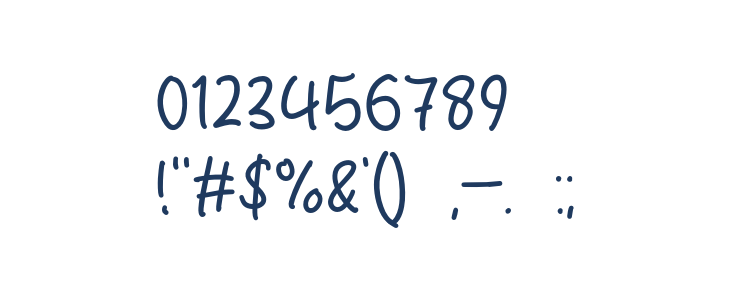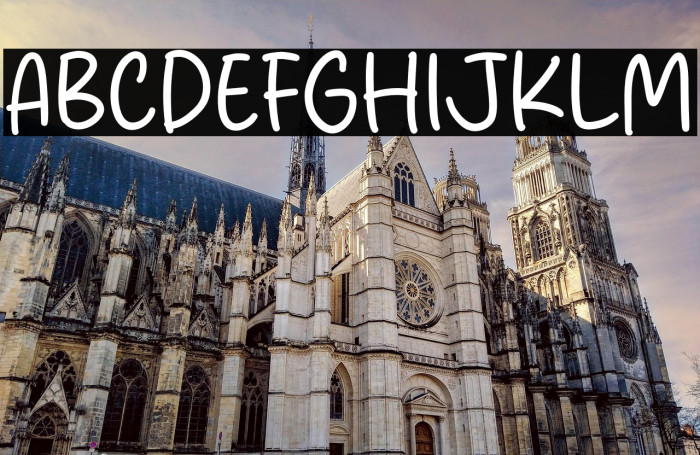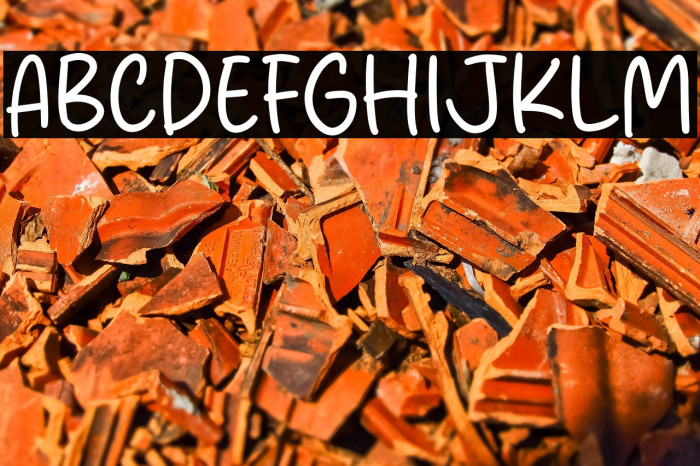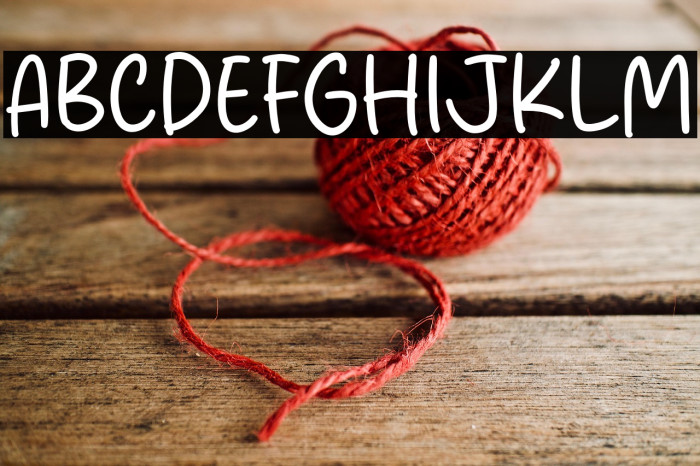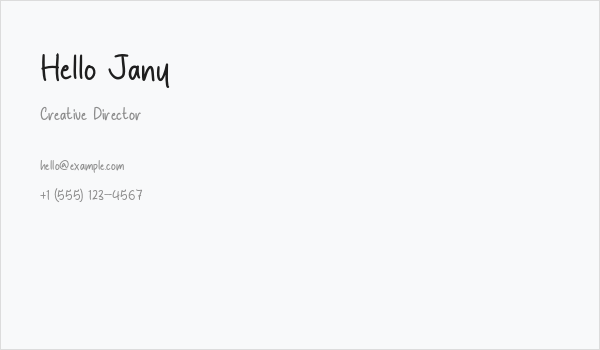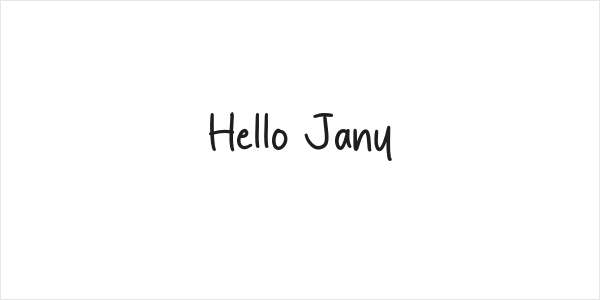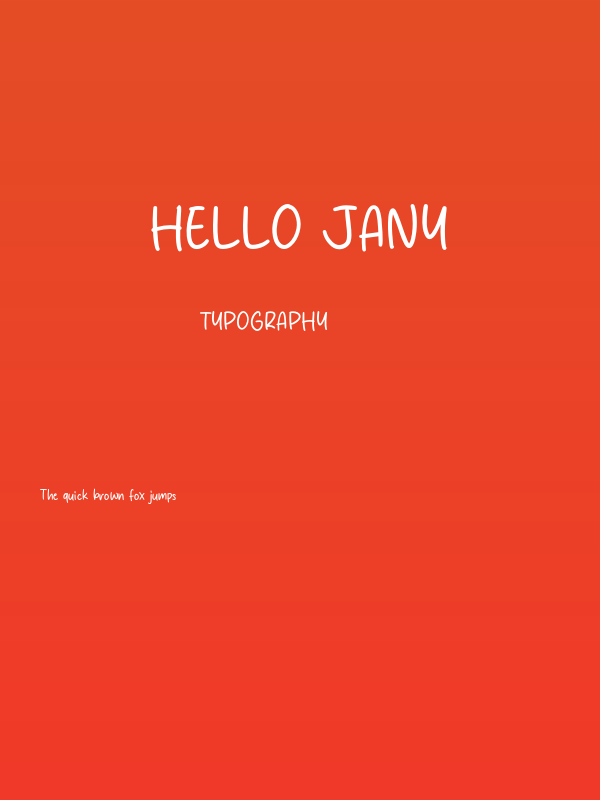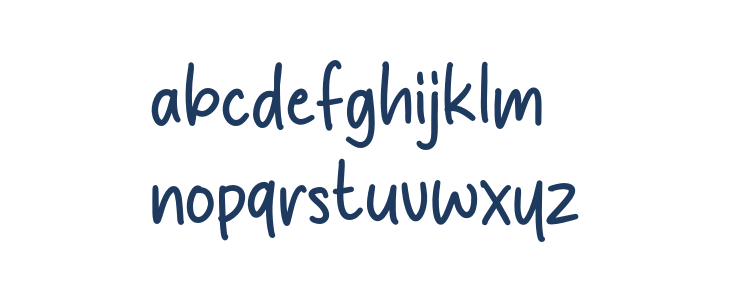
Hello Jany Font
Hello Jany Description
This playful and casual font features a handwritten style with smooth, rounded edges and a friendly appearance. The characters are slightly irregular, adding a personal touch that mimics natural handwriting. The uppercase and lowercase letters maintain a consistent flow, while the numerals and special characters blend seamlessly with the overall style. The font's informal nature makes it ideal for projects that require a warm and approachable feel, such as invitations, greeting cards, or children's books. Its legibility is maintained across different sizes, making it versatile for various design needs.
| Use Case | Headlines, Informal text, Branding |
| Proposed Projects | Ideal for invitations, greeting cards, children's books, and casual branding. |